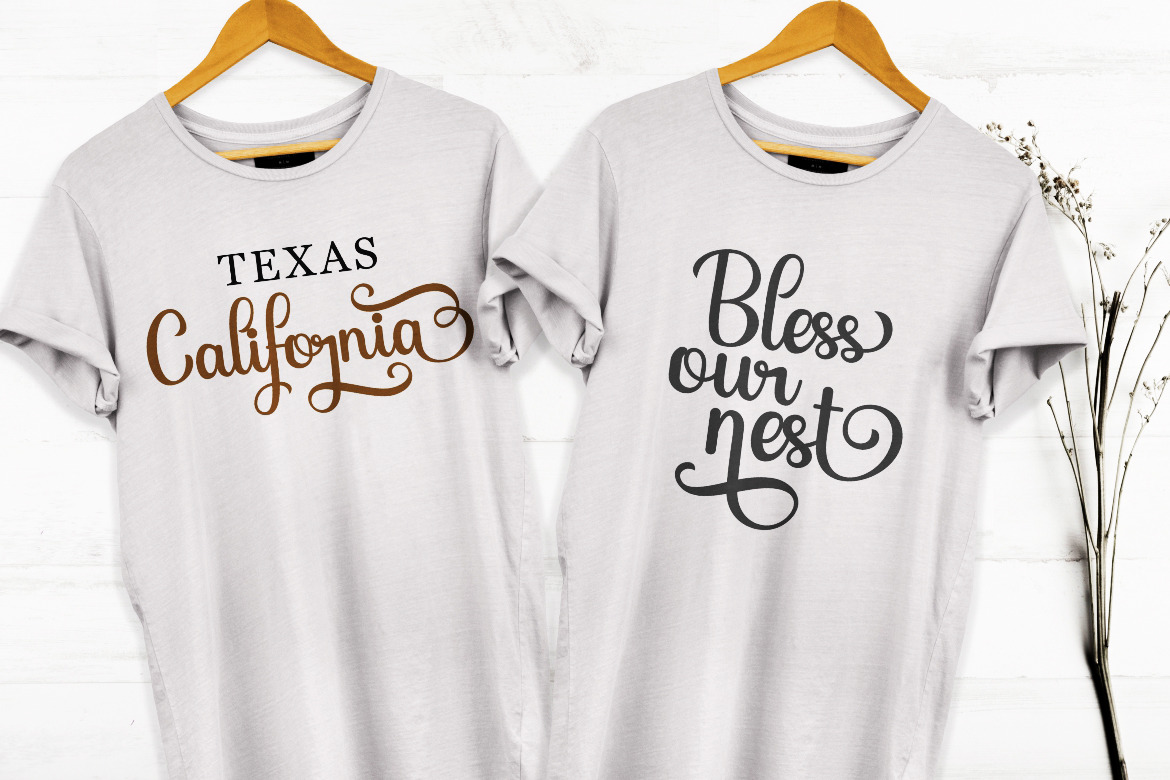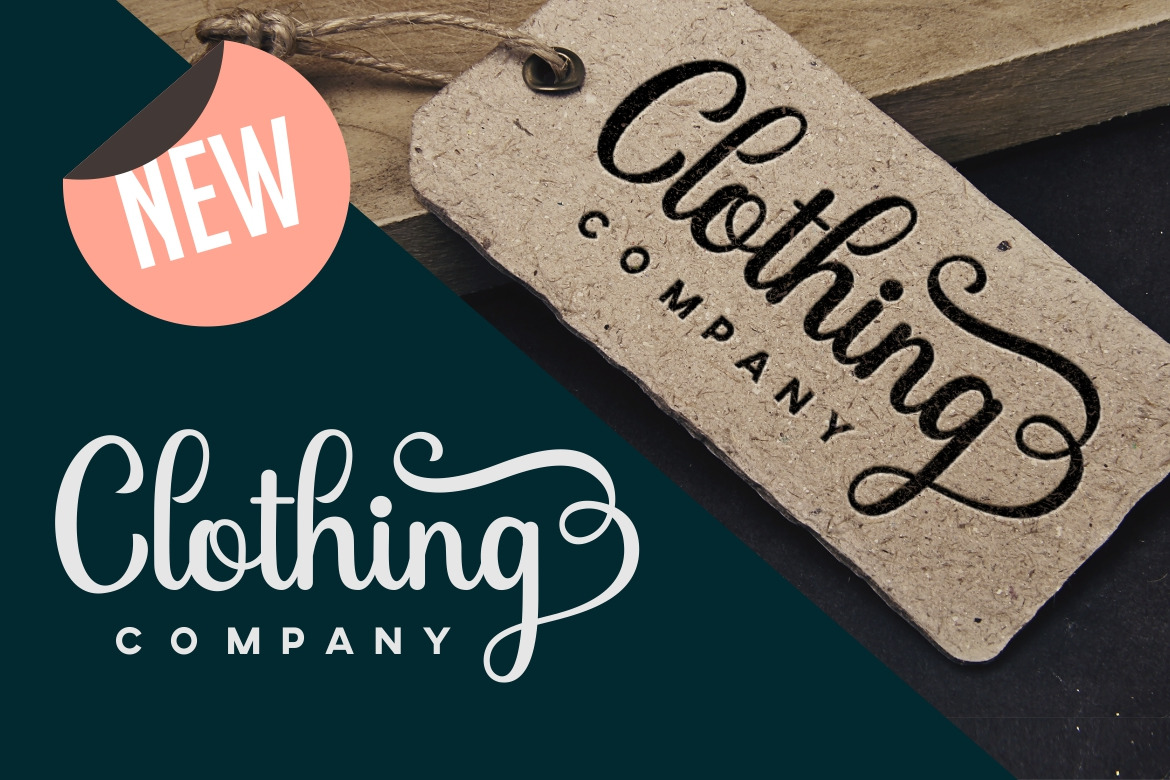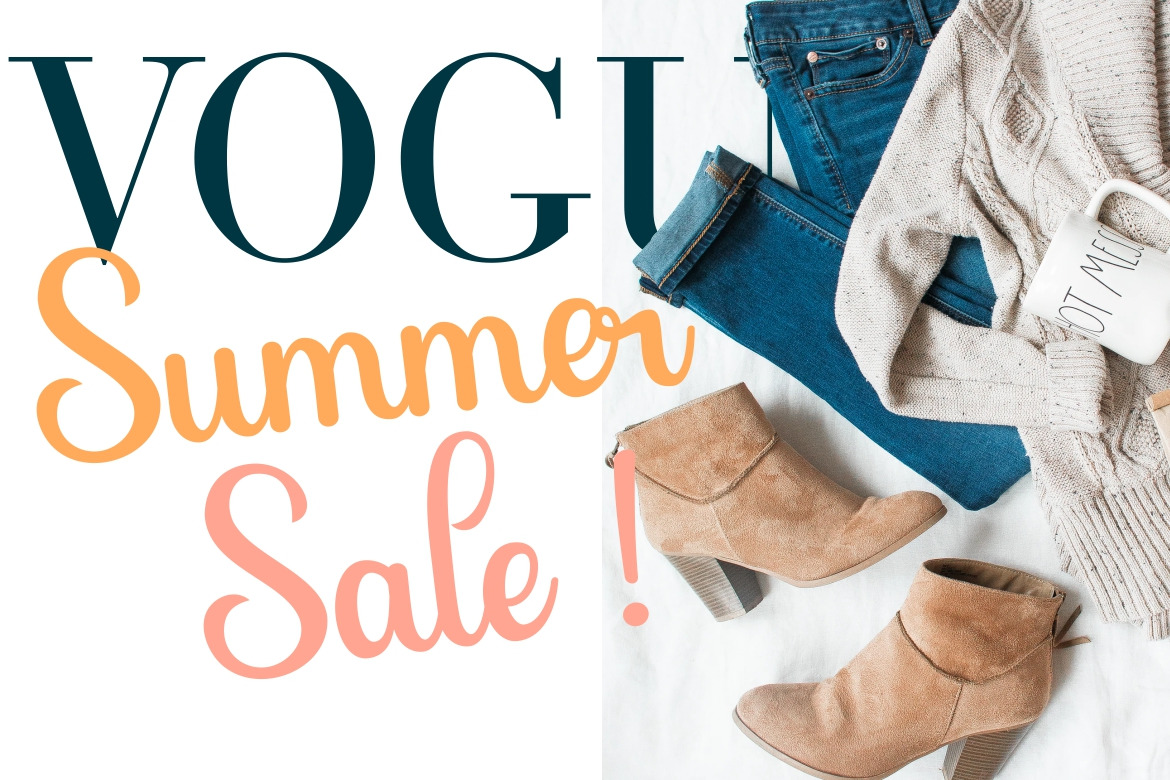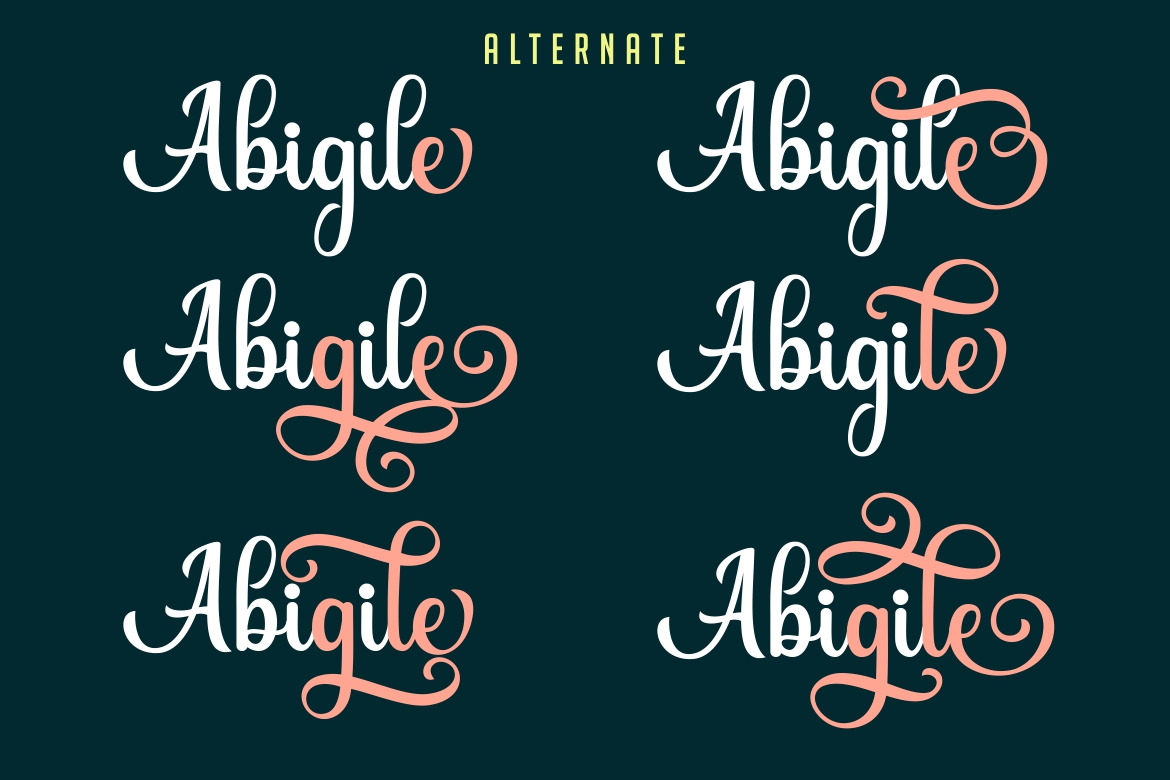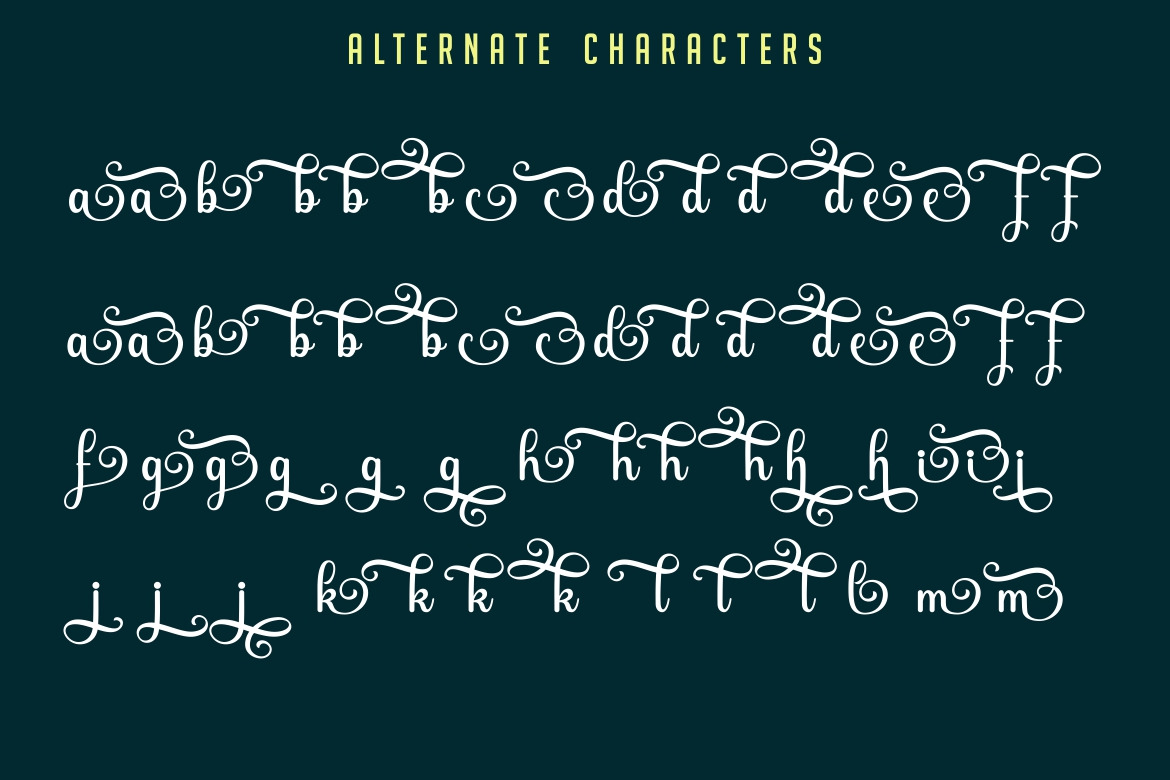
Abigile Font
Abigile is a Clean and modern calligraphy font with many alternative styles. Very recomended to open in software design like a Adobe photoshop / illustrator, coreldraw, and more..
This font is perfect for various projects such as invitations, product packaging, product design, labels, logos & branding or whatever.